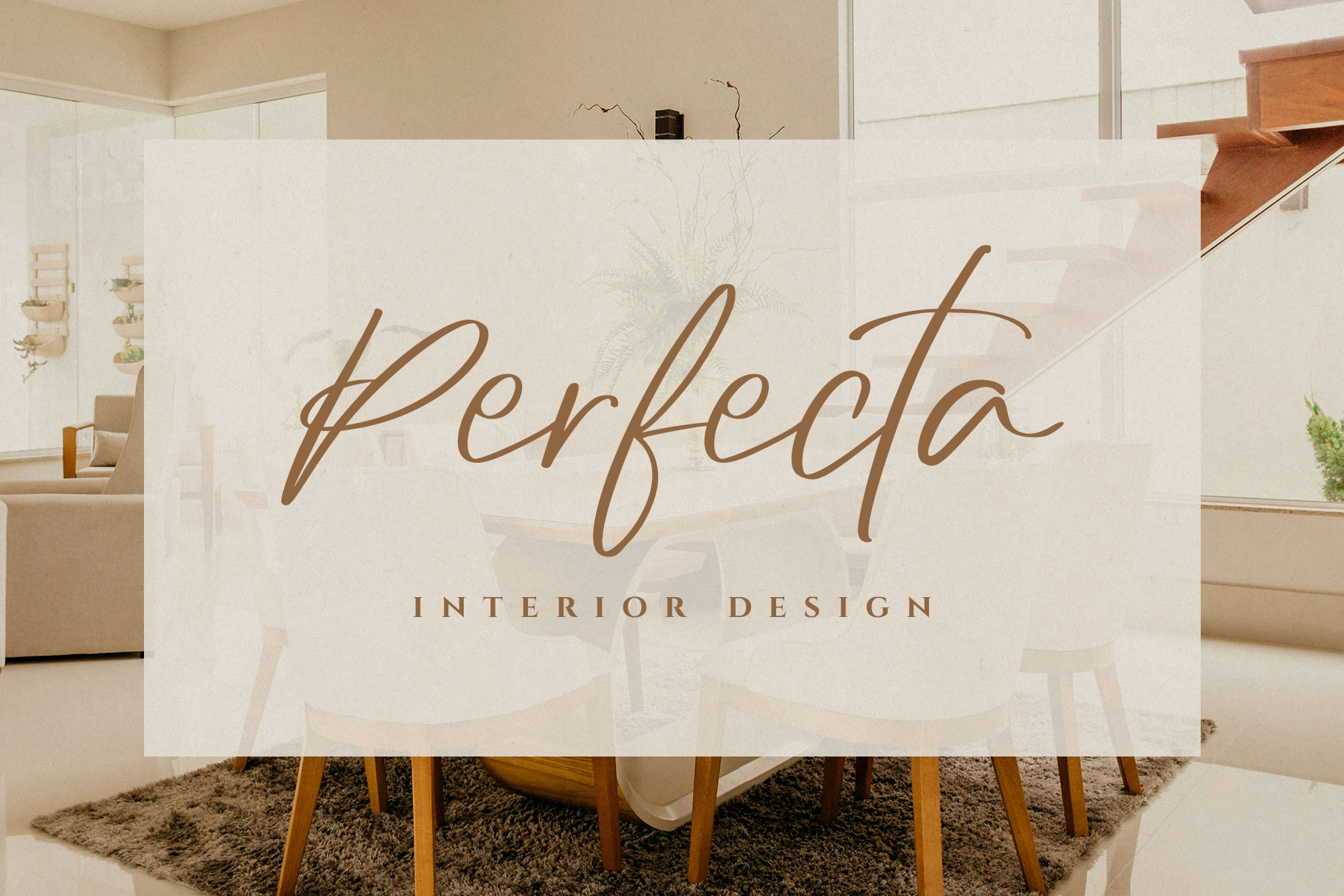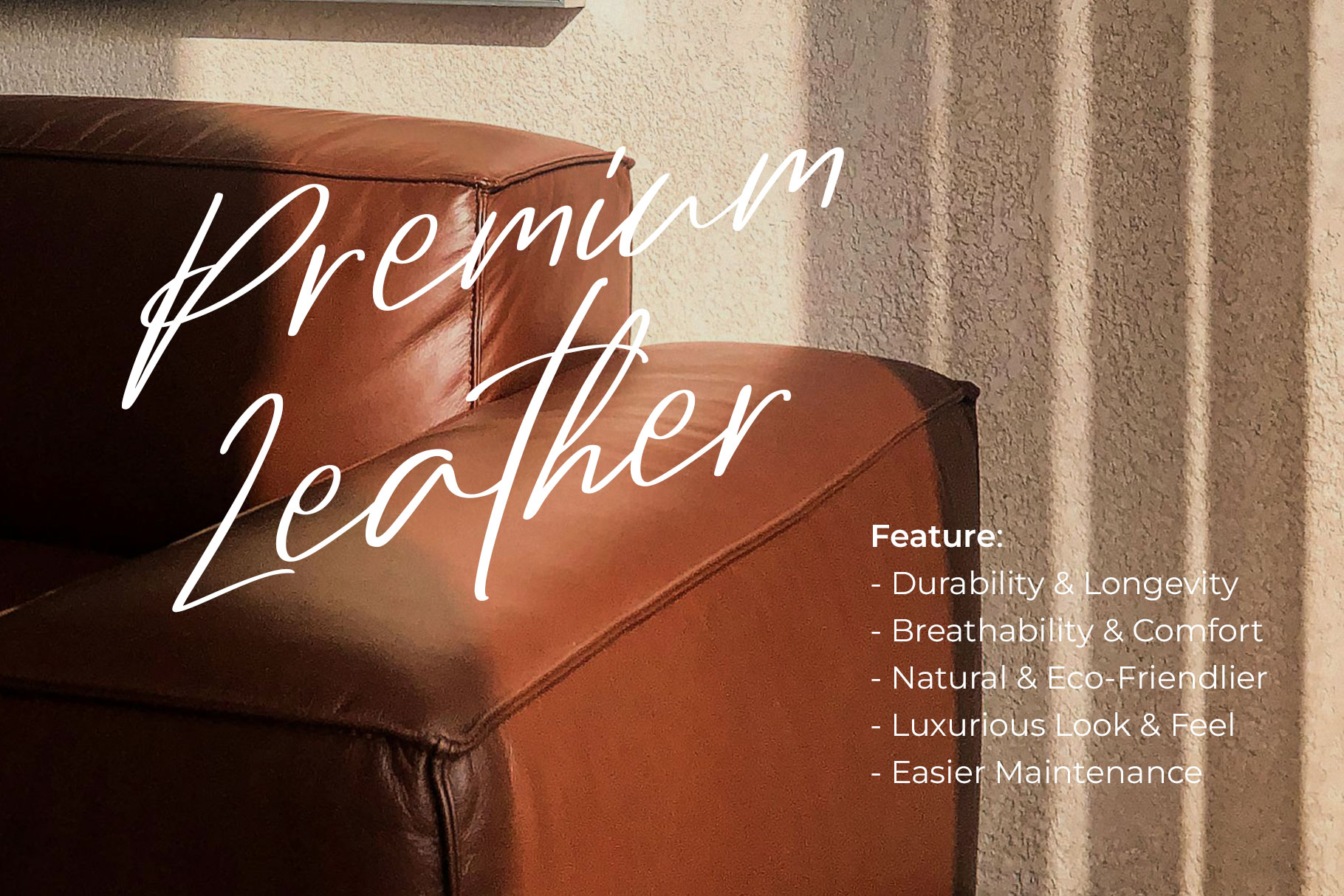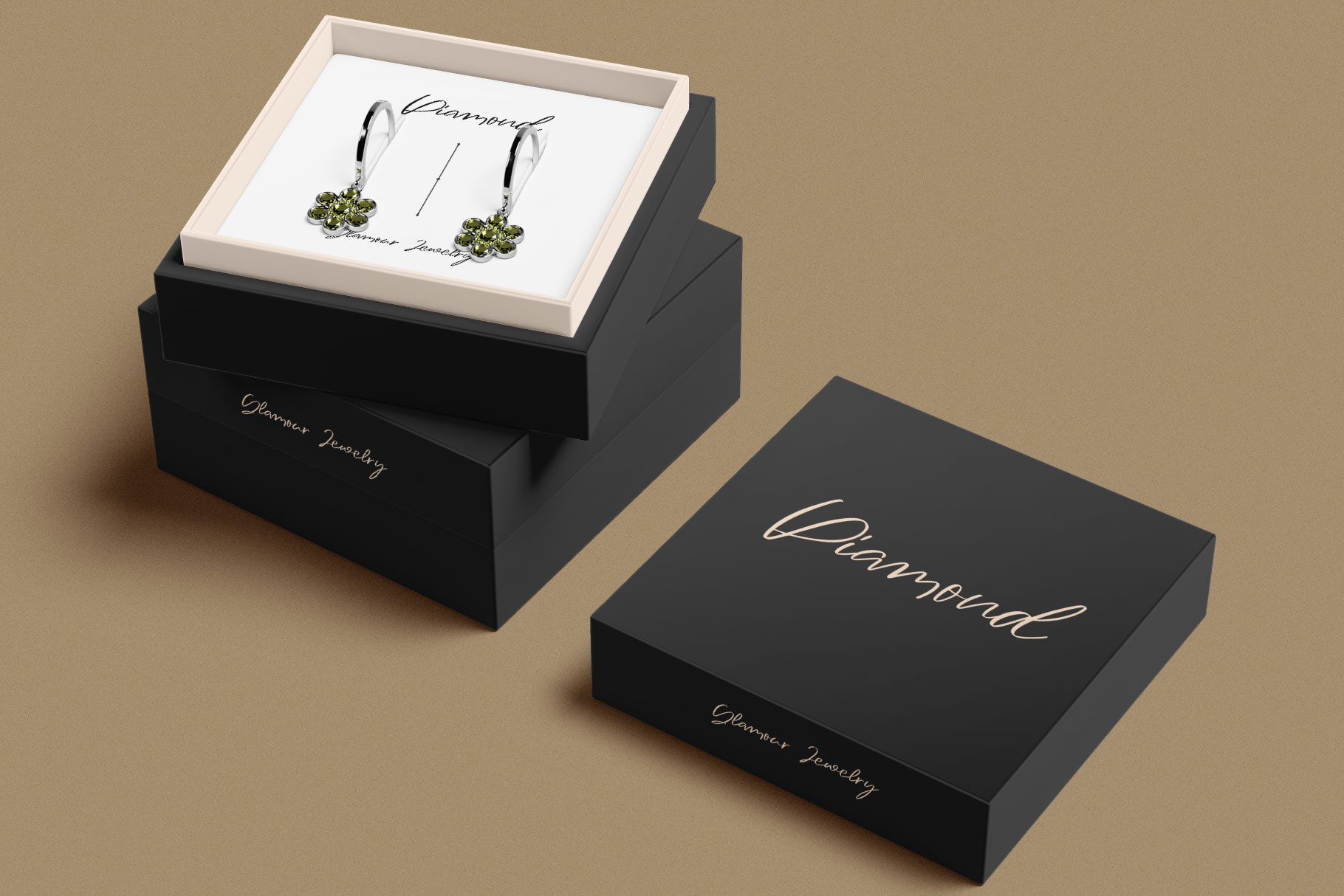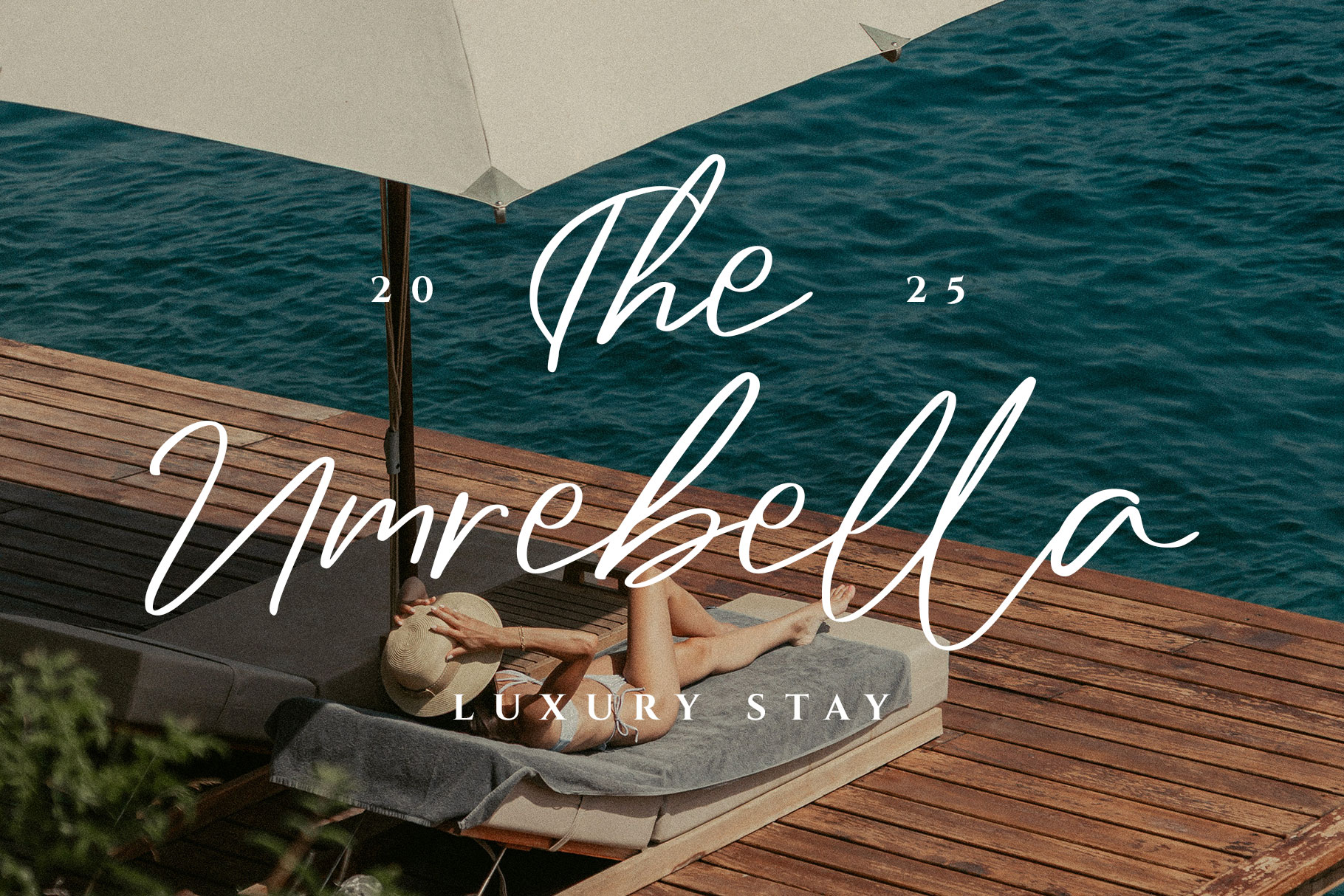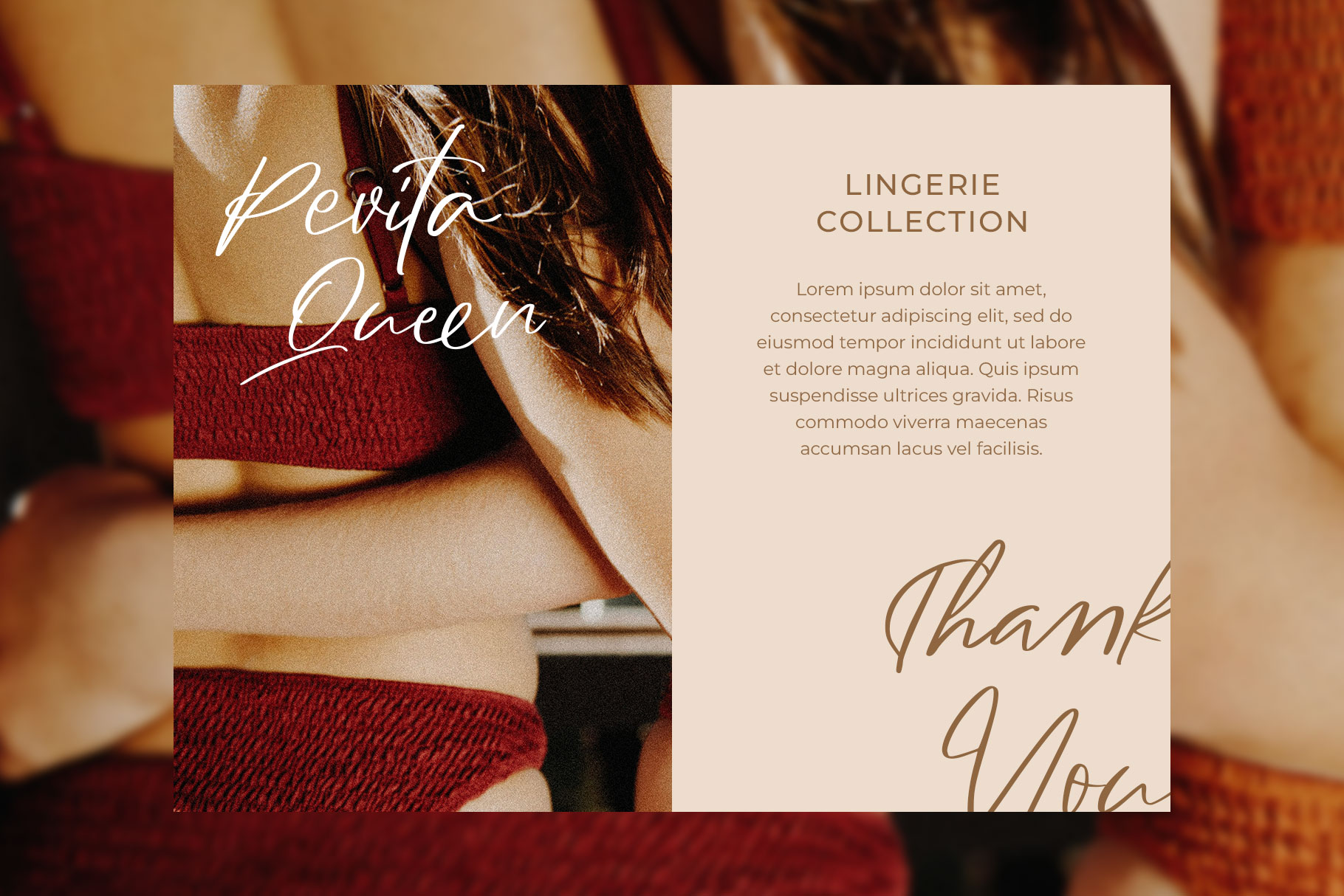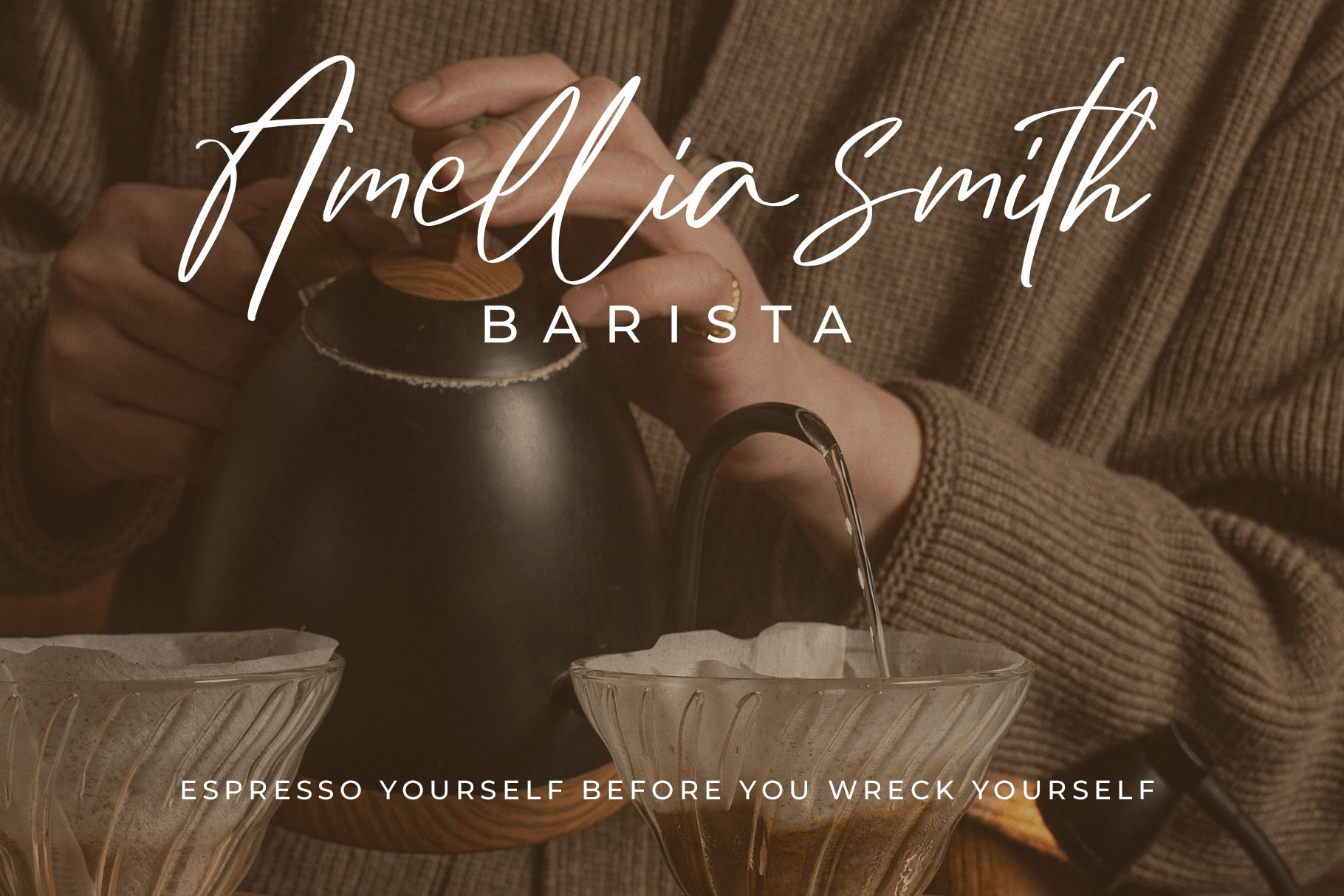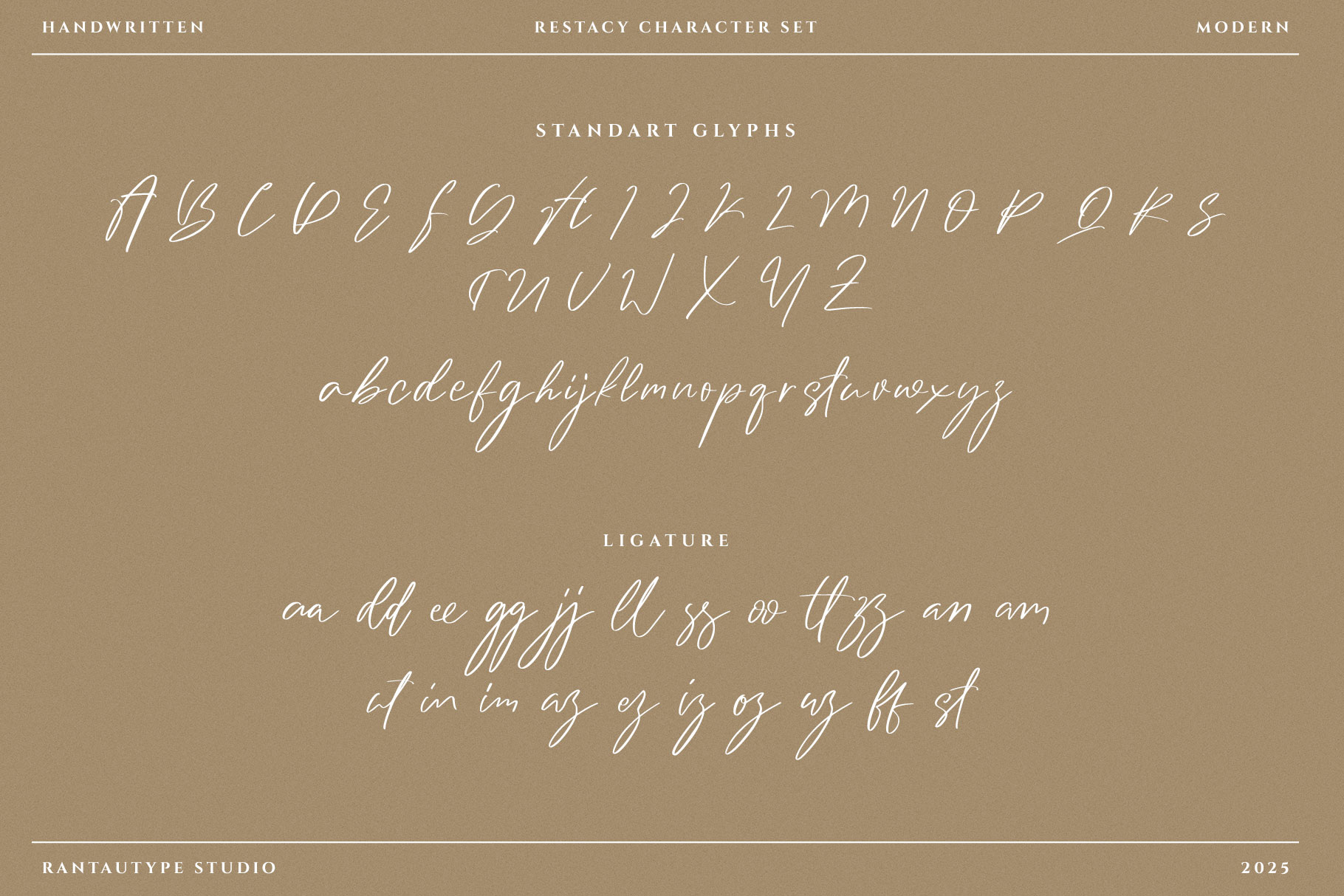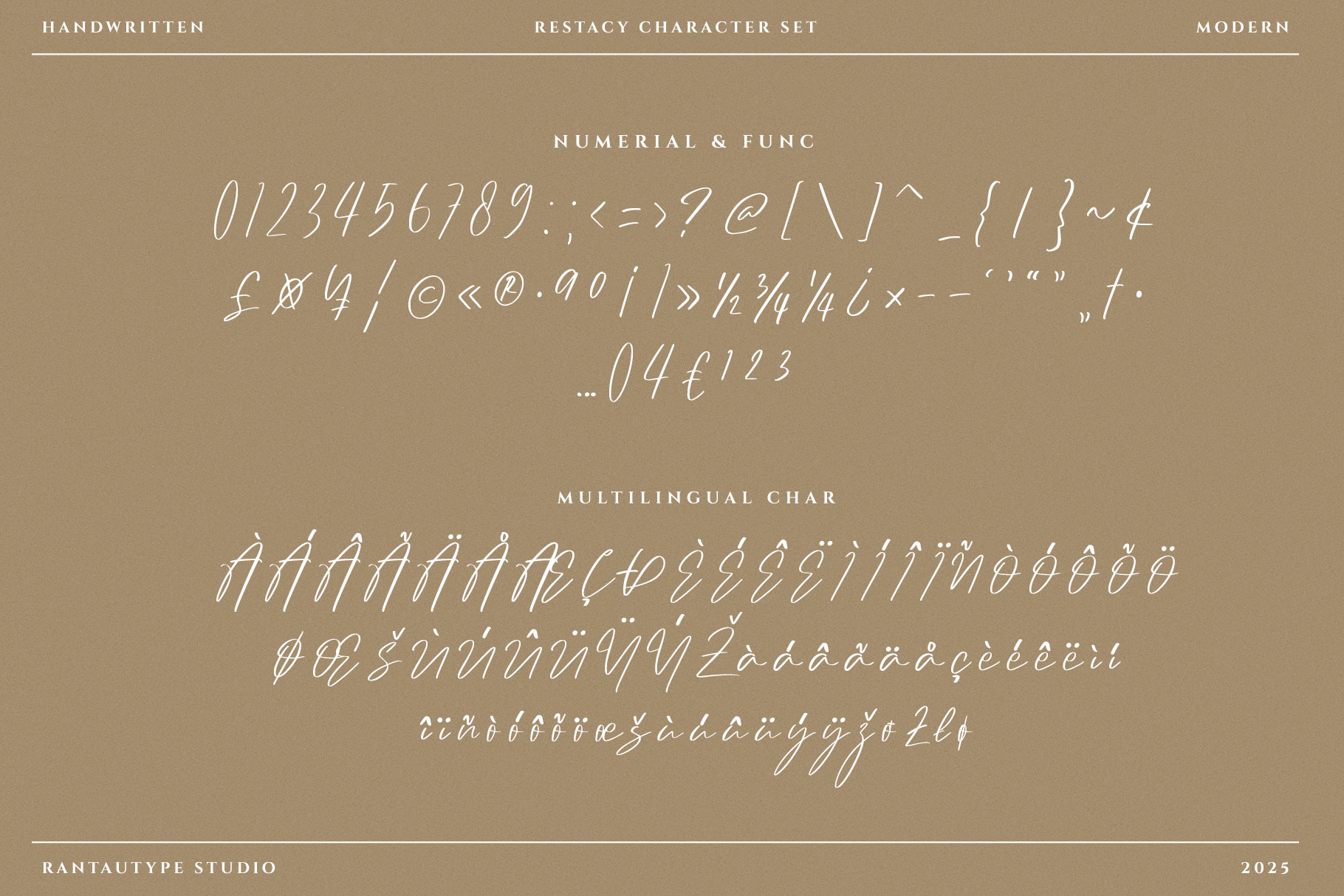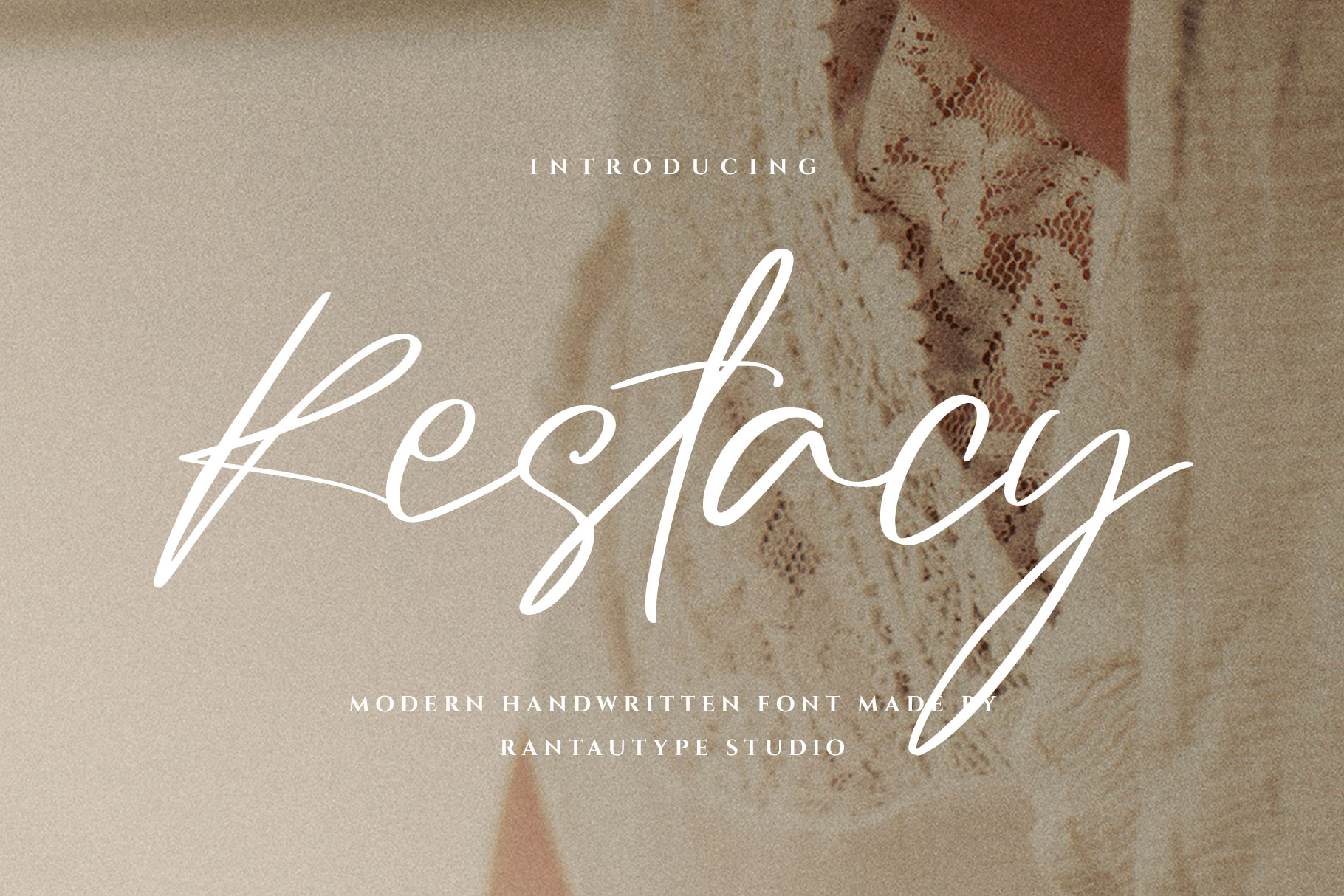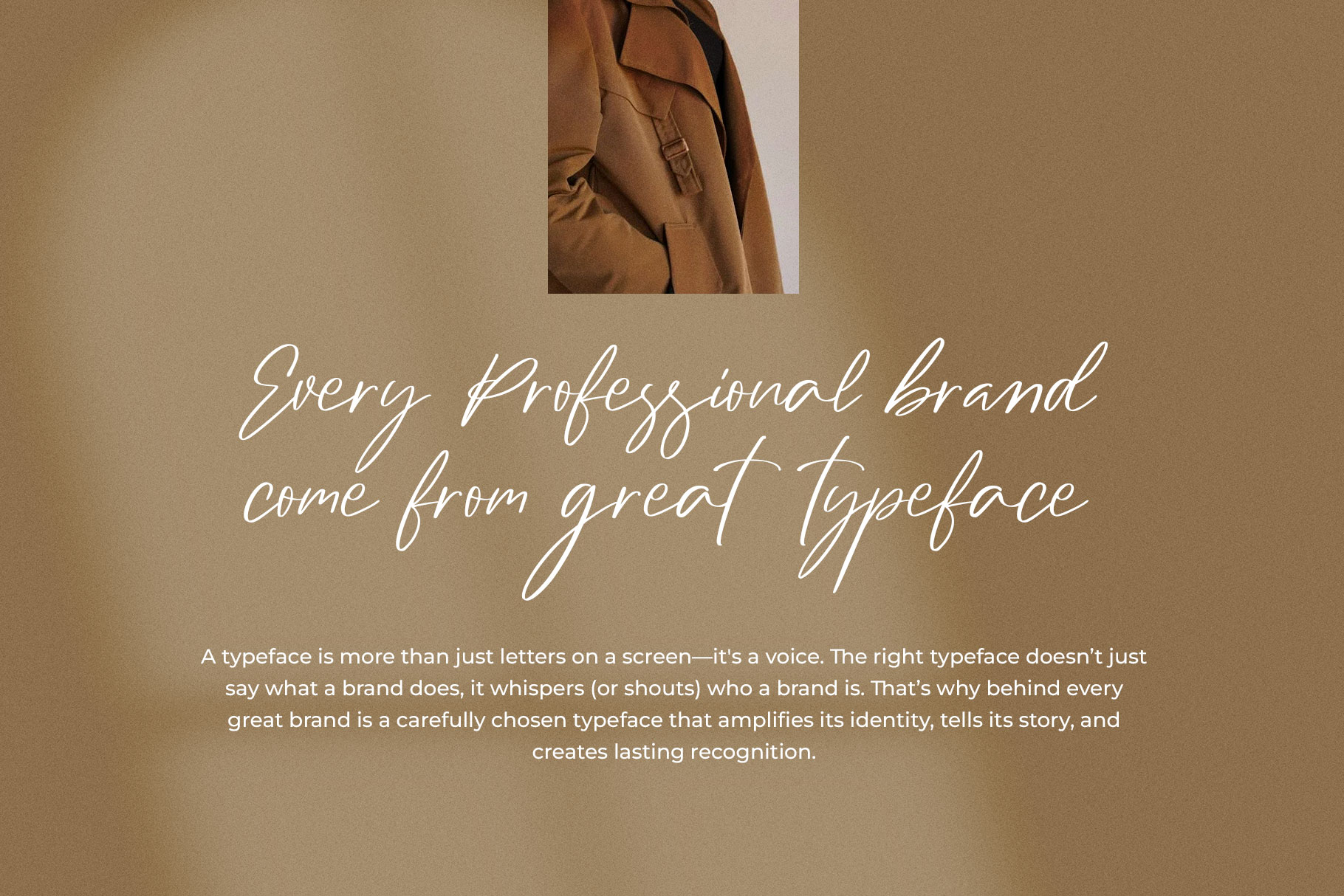
Restacy Modern Handwritten Font
Restacy is modern handwritten font with stylish curve and trendy look . Restacy is a perfectly choice for any creative endeavor, creating, modern, chic, lifestyle design such as logotype, title, cover, branding, invitations, wedding designs, display and magazine, social media posts, advertisements, printed quotes, product packaging, corporate brand, product designs, labels, photography, watermarks, special events and any other project with modern touch.